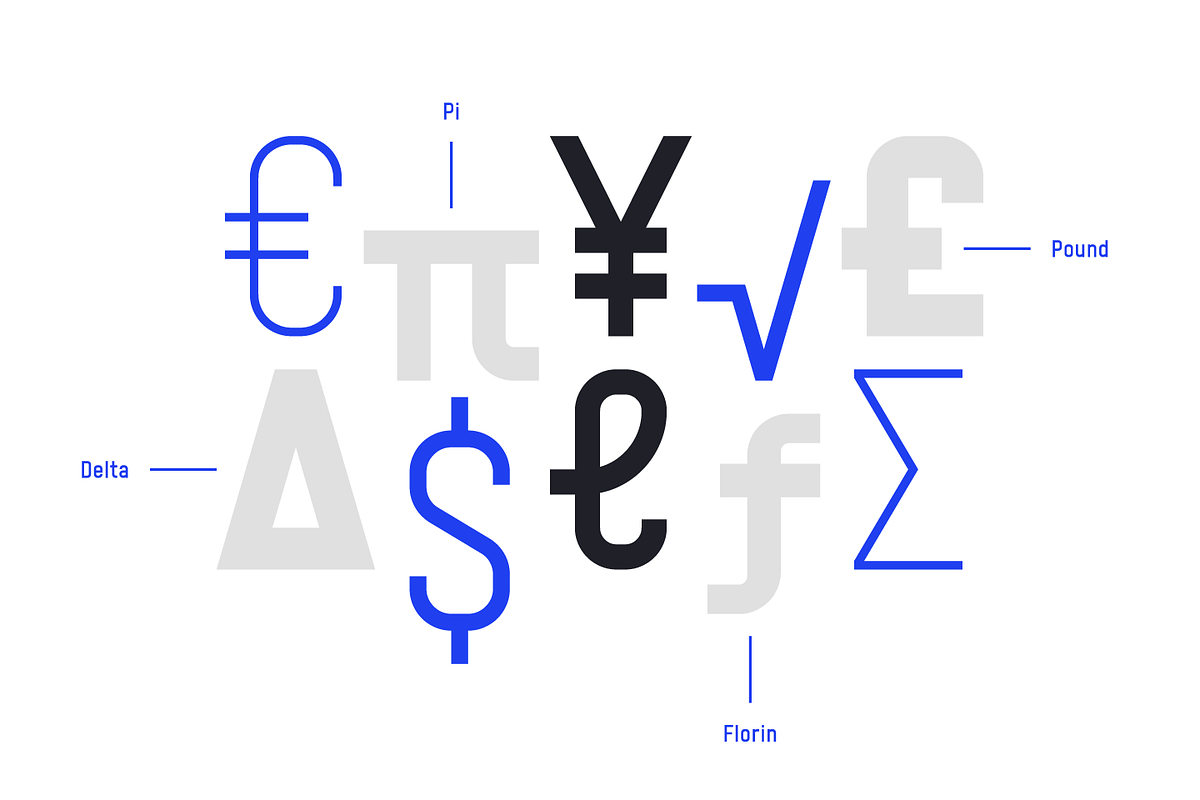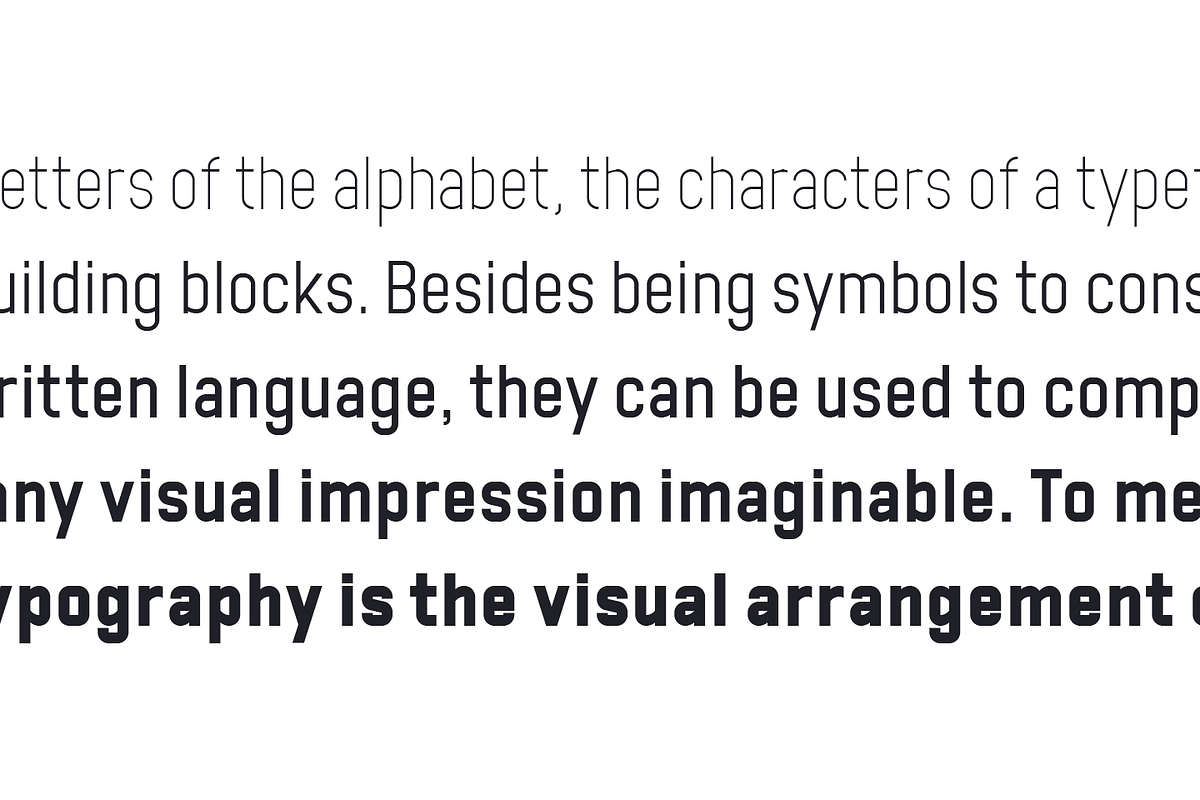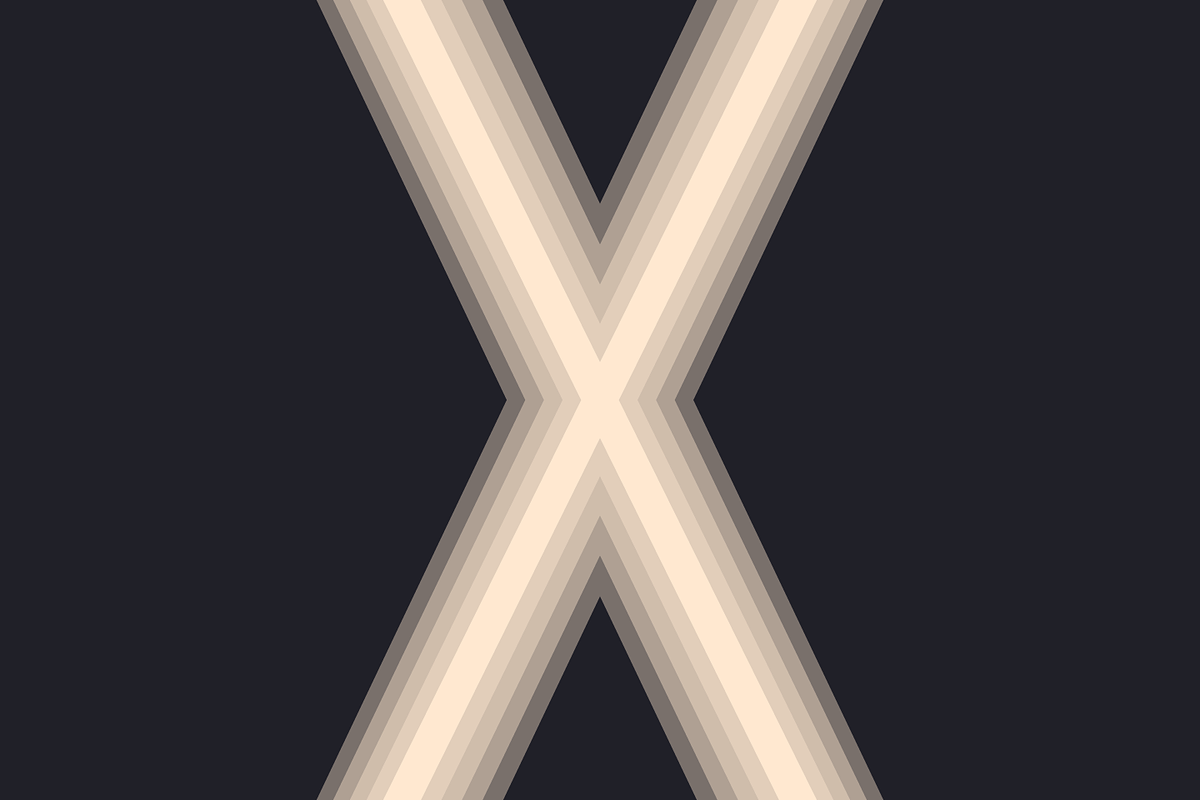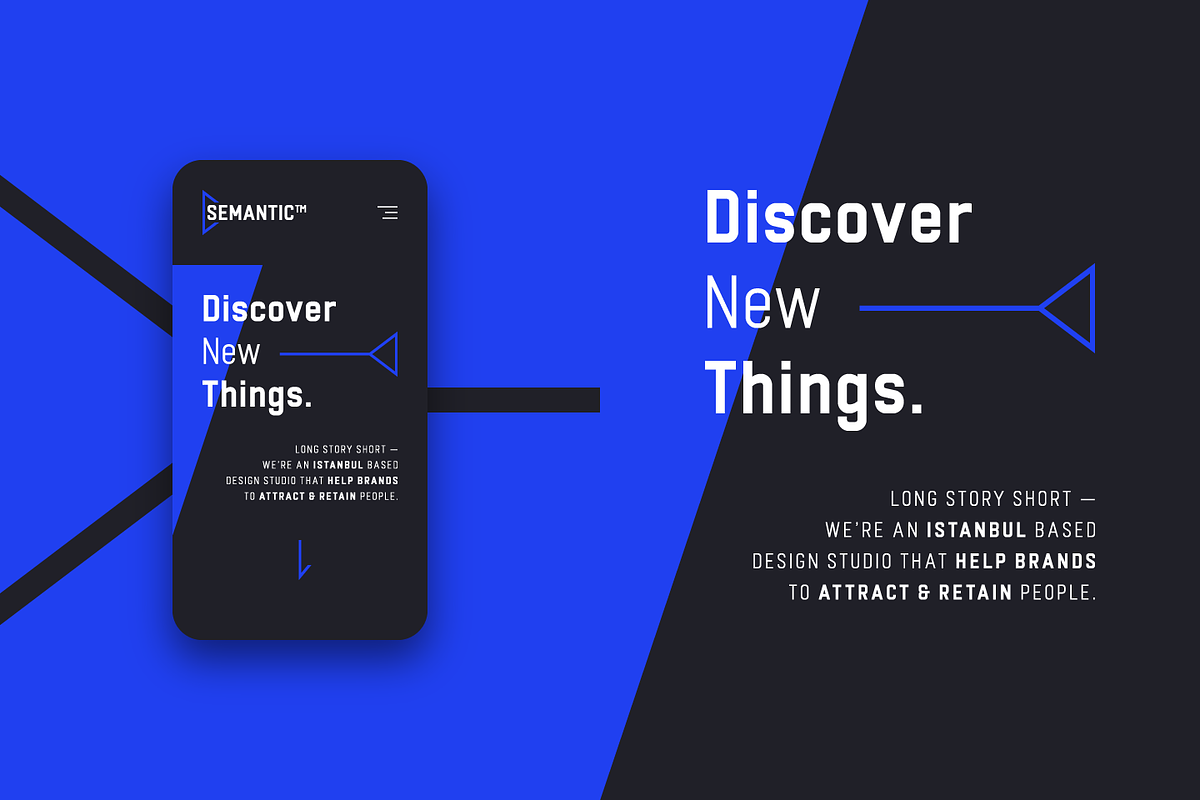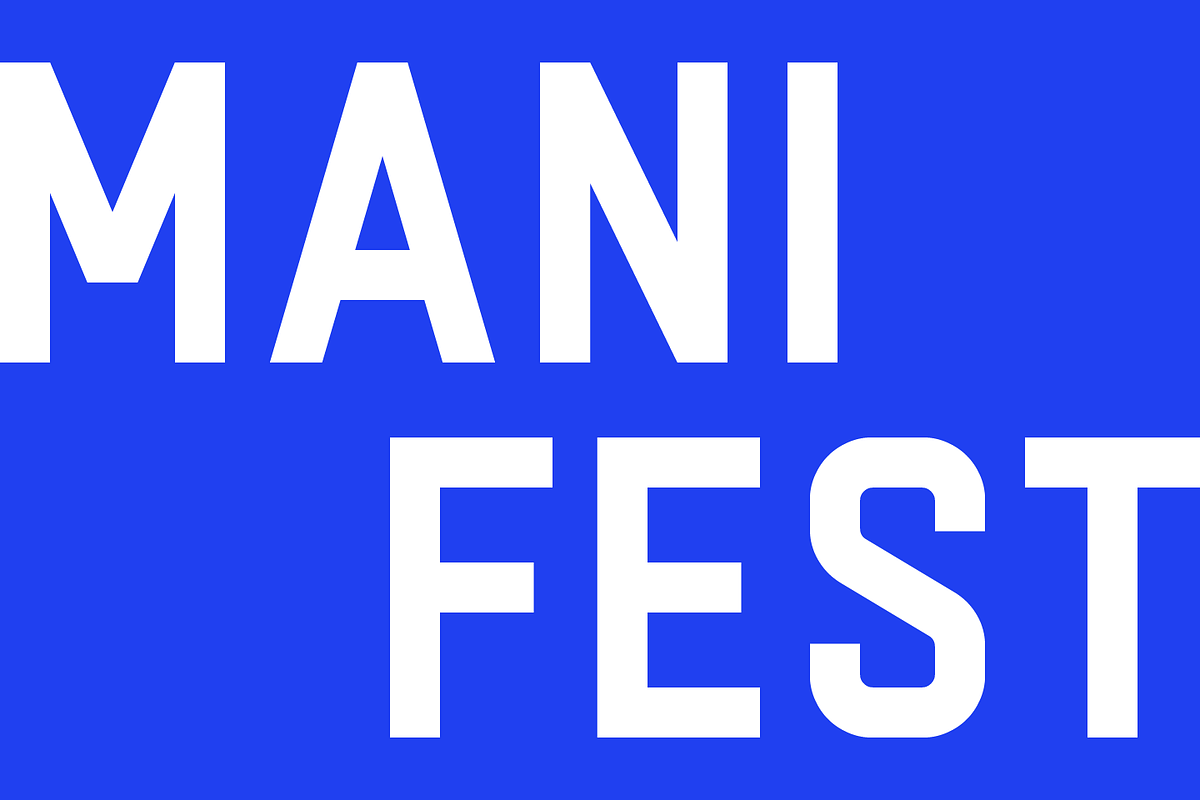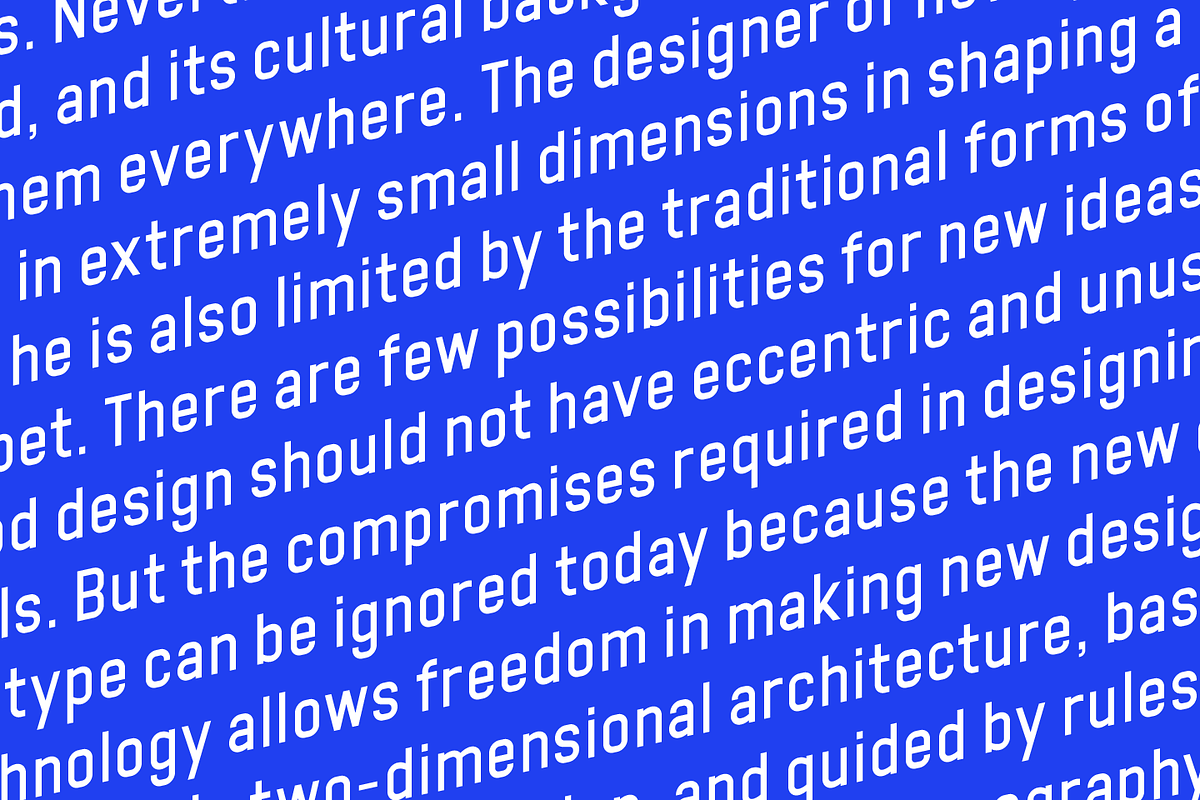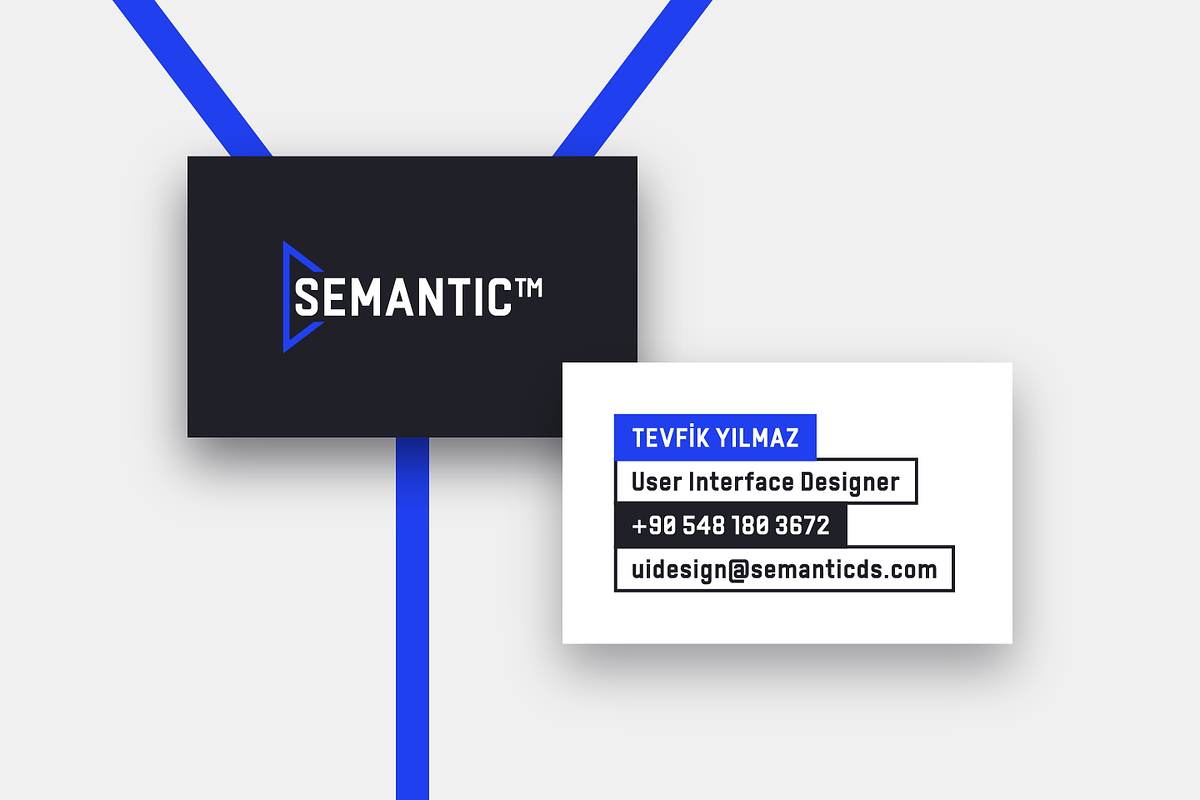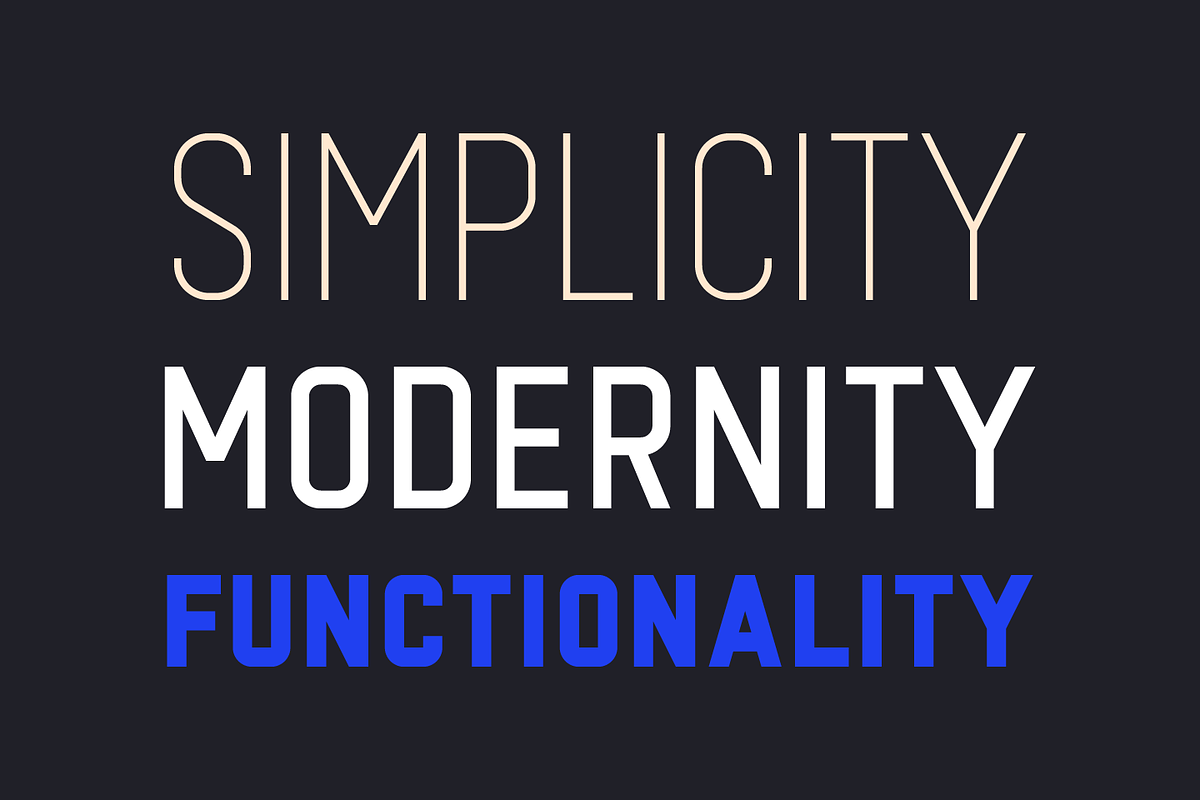
Manifest Type Family
Manifest is a geometric type family that based on the principles of simplicity, modernity and functionality. With low-contast design approach, it performs excellently in any project from print to digital.
It comes in five weights with an extended character set includes 240+ glyphs per typeface, supports Western and some Central European languages.
Contains five weights:
- Manifest Thin
- Manifest Light
- Manifest Regular
- Manifest Bold
- Manifest Heavy